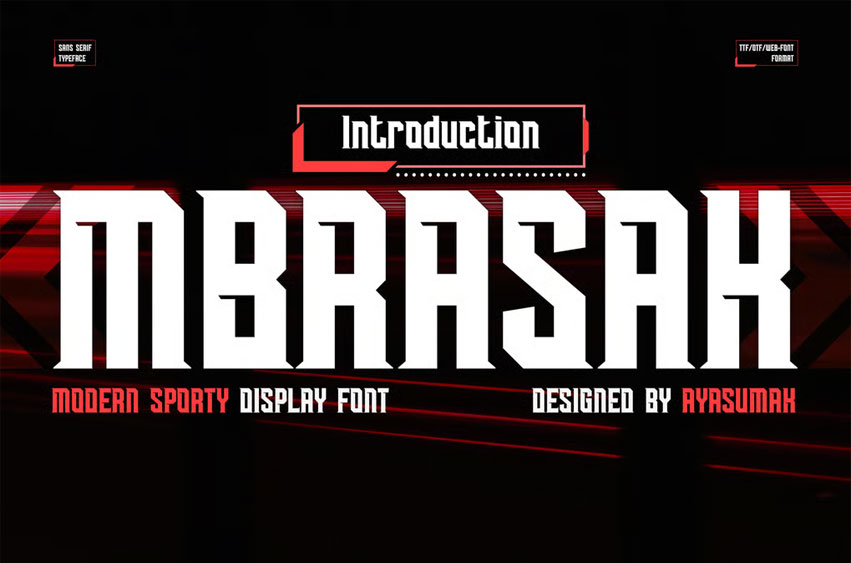
Mbrasak Font Sports Gamer Bold Font – a Modern Professional Typeface excellent used for Heading or Title, Logotype, Merchandise, Clothing, Magazine, Ticket, Scoreboard, Sports Flyer and many more.
Every letter has a unique and beautiful touch, which will make your design come alive!